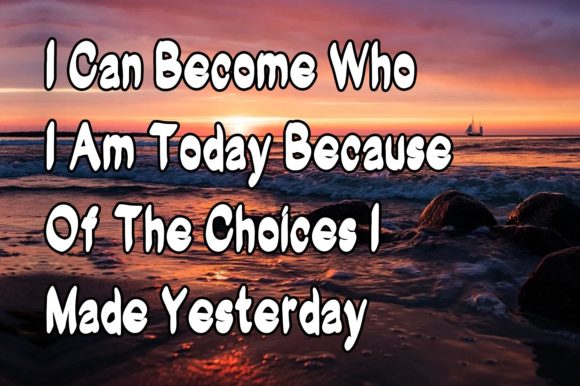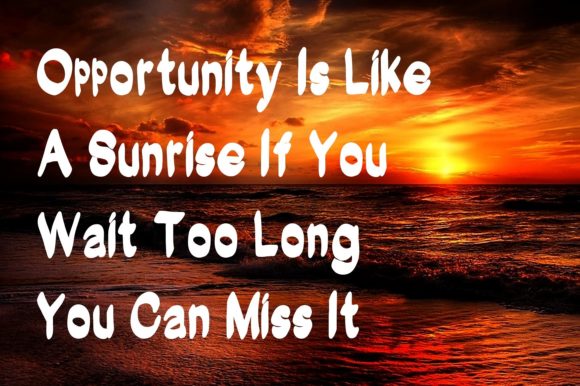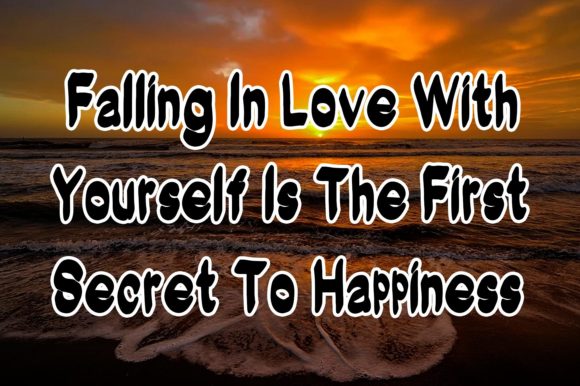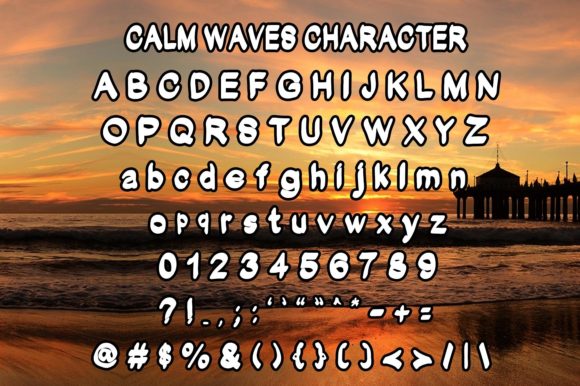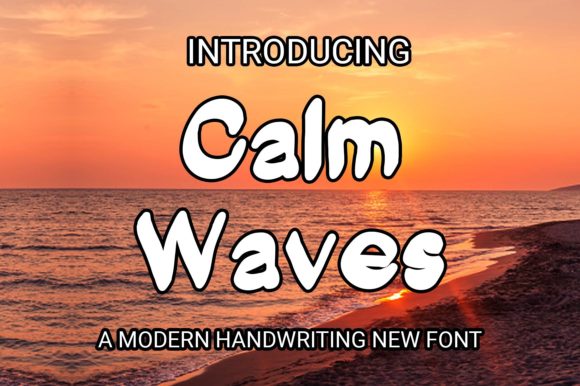
Discover the Charm of Calm Waves Font: Elevate Your Designs with a Cute and Casual Display Font
Are you on the hunt for a font that can add a touch of personality to your designs? Look no further than Calm Waves Font, a delightful and casual display font that’s perfect for creatives. This charming font is designed to make your projects stand out, whether you’re creating visual content for Instagram, crafting calligraphy scripts for DIY projects, or designing logos and branding materials. In this article, we’ll dive into the world of Calm Waves Font and explore its features, uses, and benefits for designers and crafters.
The Unique Character of Calm Waves Font
Calm Waves Font boasts a unique and playful character that sets it apart from other fonts. Its cute and casual design makes it an excellent choice for projects that require a friendly and approachable tone. The font’s smooth, flowing lines and gentle curves create a soothing visual effect, perfect for designs that aim to evoke a sense of calmness and serenity. Whether you’re designing for digital or print, Calm Waves Font is sure to add a touch of whimsy and charm to your work.
Versatility at Its Best: Endless Uses for Calm Waves Font
One of the best things about Calm Waves Font is its versatility. This font can be used for a wide range of purposes, including:
- Logos and branding materials: Create a memorable and distinctive logo that reflects your brand’s personality.
- Headings and titles: Add a touch of elegance and sophistication to your headings and titles.
- T-shirts and apparel: Design eye-catching and stylish t-shirts, hoodies, and other apparel.
- Letterhead and stationery: Elevate your business correspondence with a professional and stylish letterhead.
- Signage and displays: Create attention-grabbing signs and displays that showcase your message.
- Labels and packaging: Add a personal touch to your product labels and packaging.
- News and editorials: Use Calm Waves Font to add a unique and stylish touch to your news articles and editorials.
- Posters and flyers: Design stunning posters and flyers that grab attention.
- Badges and awards: Create custom badges and awards that feature your logo or message.
Why Choose Calm Waves Font?
So, what makes Calm Waves Font an excellent choice for designers and crafters? Here are just a few reasons:
- Easy to read: Despite its playful design, Calm Waves Font is easy to read, making it perfect for body text and captions.
- Highly versatile: Use Calm Waves Font for a wide range of projects, from digital designs to print materials.
- Unique and distinctive: Stand out from the crowd with a font that’s truly one-of-a-kind.
- Perfect for creative projects: Whether you’re working on a DIY project or a professional design, Calm Waves Font is sure to inspire your creativity.
Tips for Using Calm Waves Font
To get the most out of Calm Waves Font, here are a few tips to keep in mind:
- Experiment with sizes: Calm Waves Font looks great in a variety of sizes, from large headings to smaller body text.
- Play with colors: Try pairing Calm Waves Font with different colors to create a unique and eye-catching design.
- Mix and match: Combine Calm Waves Font with other fonts to create a distinctive and stylish look.
Calm Waves Font is a charming and versatile display font that’s perfect for designers and crafters. With its unique character, endless uses, and ease of use, this font is sure to become a staple in your design toolkit. Whether you’re creating visual content for Instagram, designing logos and branding materials, or crafting DIY projects, Calm Waves Font is the perfect choice. So why wait? Download Calm Waves Font today and start elevating your designs to the next level!